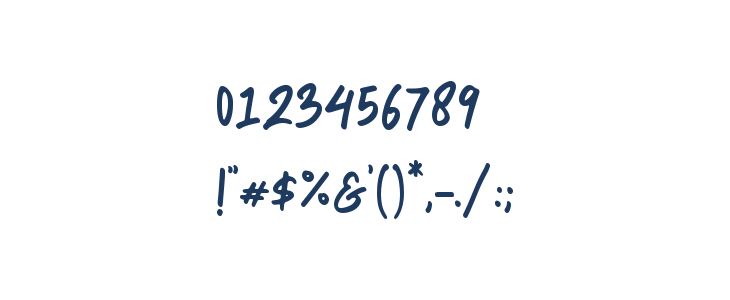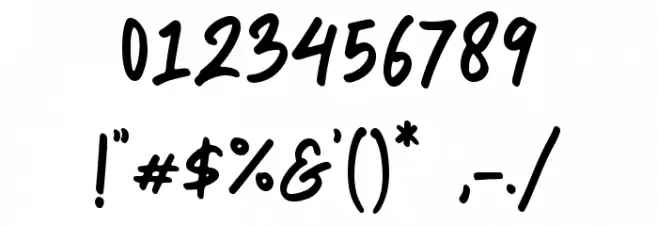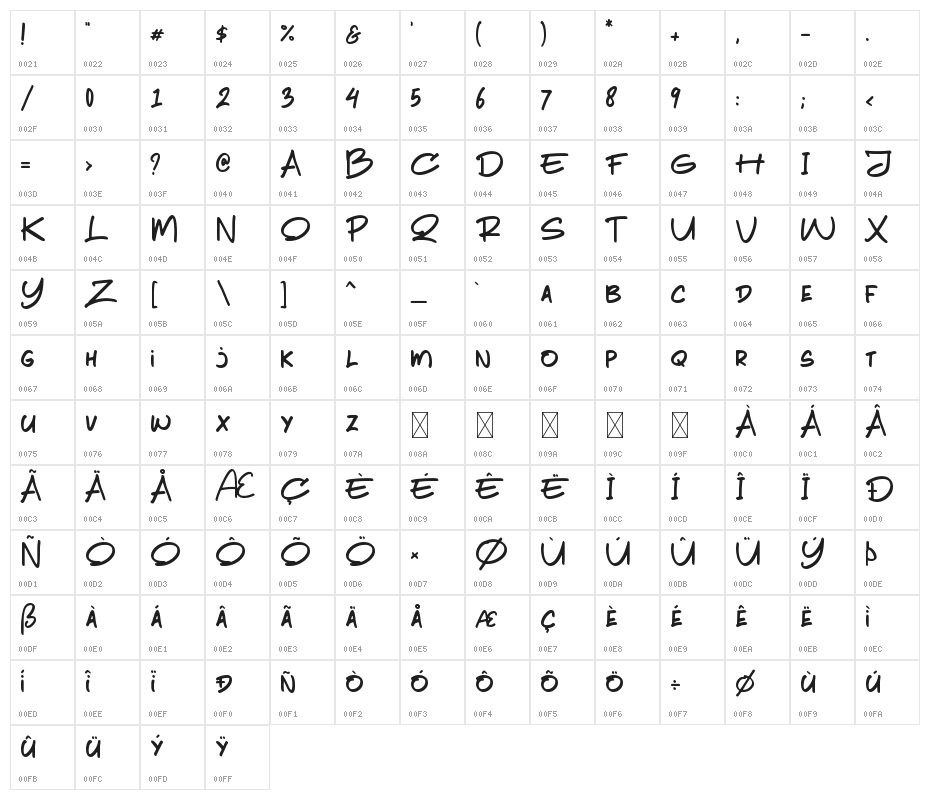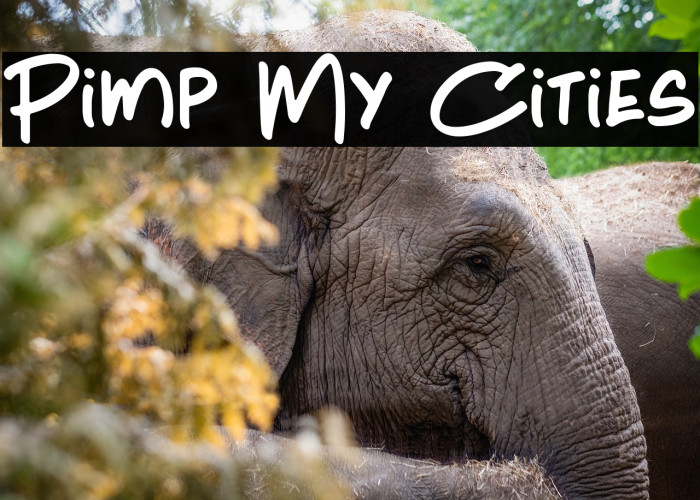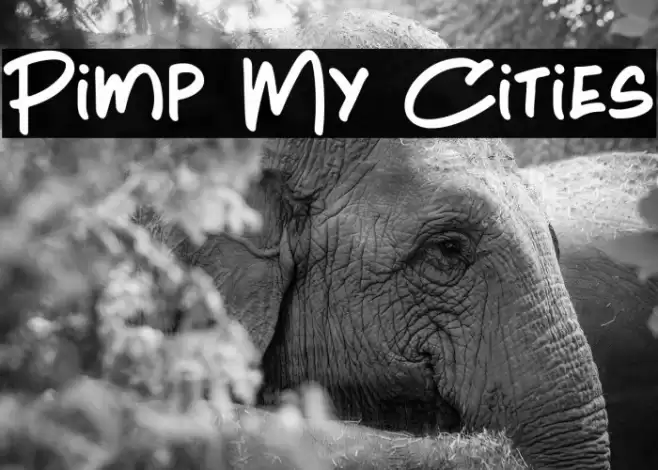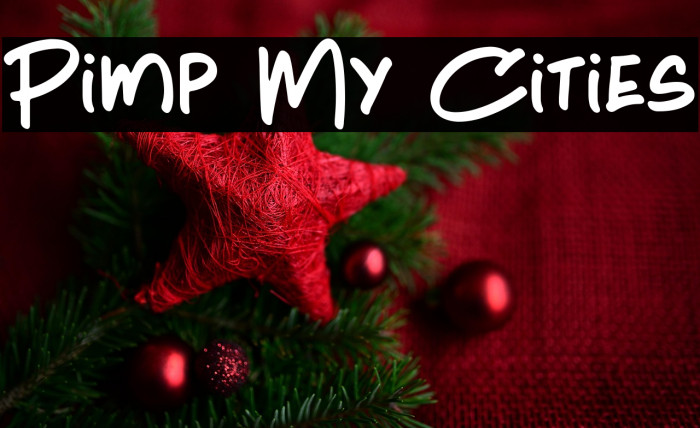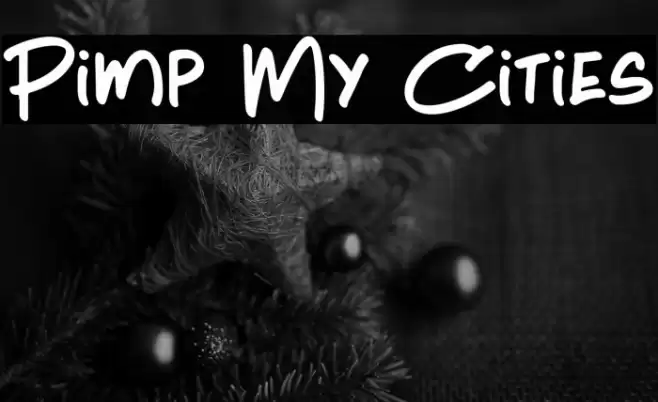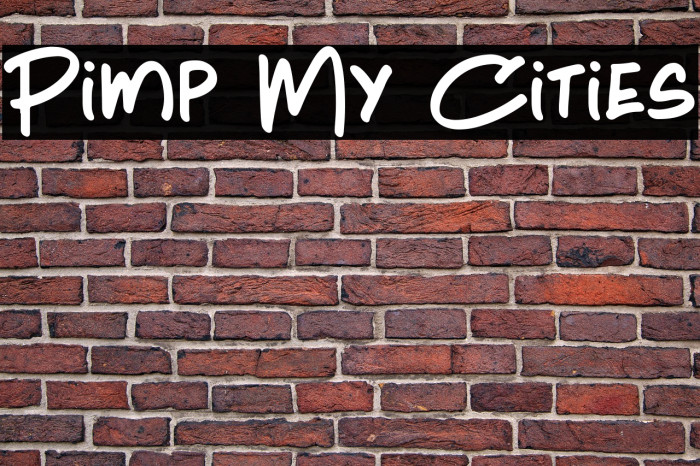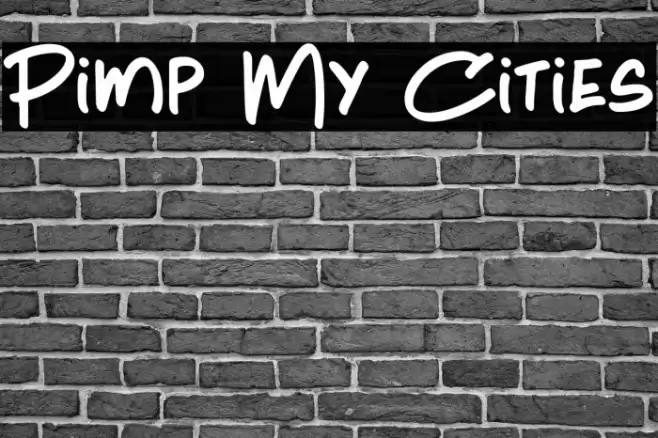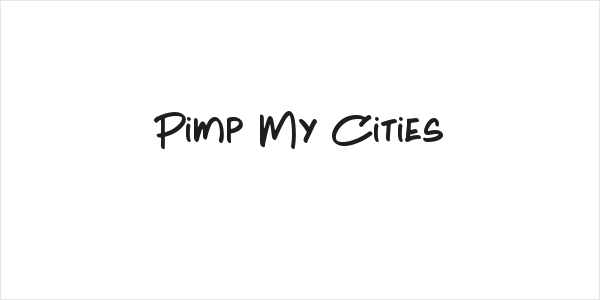
Pimp My Cities Font
Pimp My Cities Description
This font features a playful and energetic style, characterized by its handwritten appearance. The uppercase letters have a casual, slightly slanted form, while the lowercase letters maintain a consistent flow, enhancing its informal look. The numbers are bold and easy to read, complementing the overall style. Special characters are creatively integrated, adding to the font's versatility. The strokes are smooth and rounded, giving it a friendly and approachable feel. This font is ideal for projects that require a personal touch, such as invitations, greeting cards, or creative branding.
| Proposed Projects | Ideal for invitations, greeting cards, creative branding, and informal communications. |